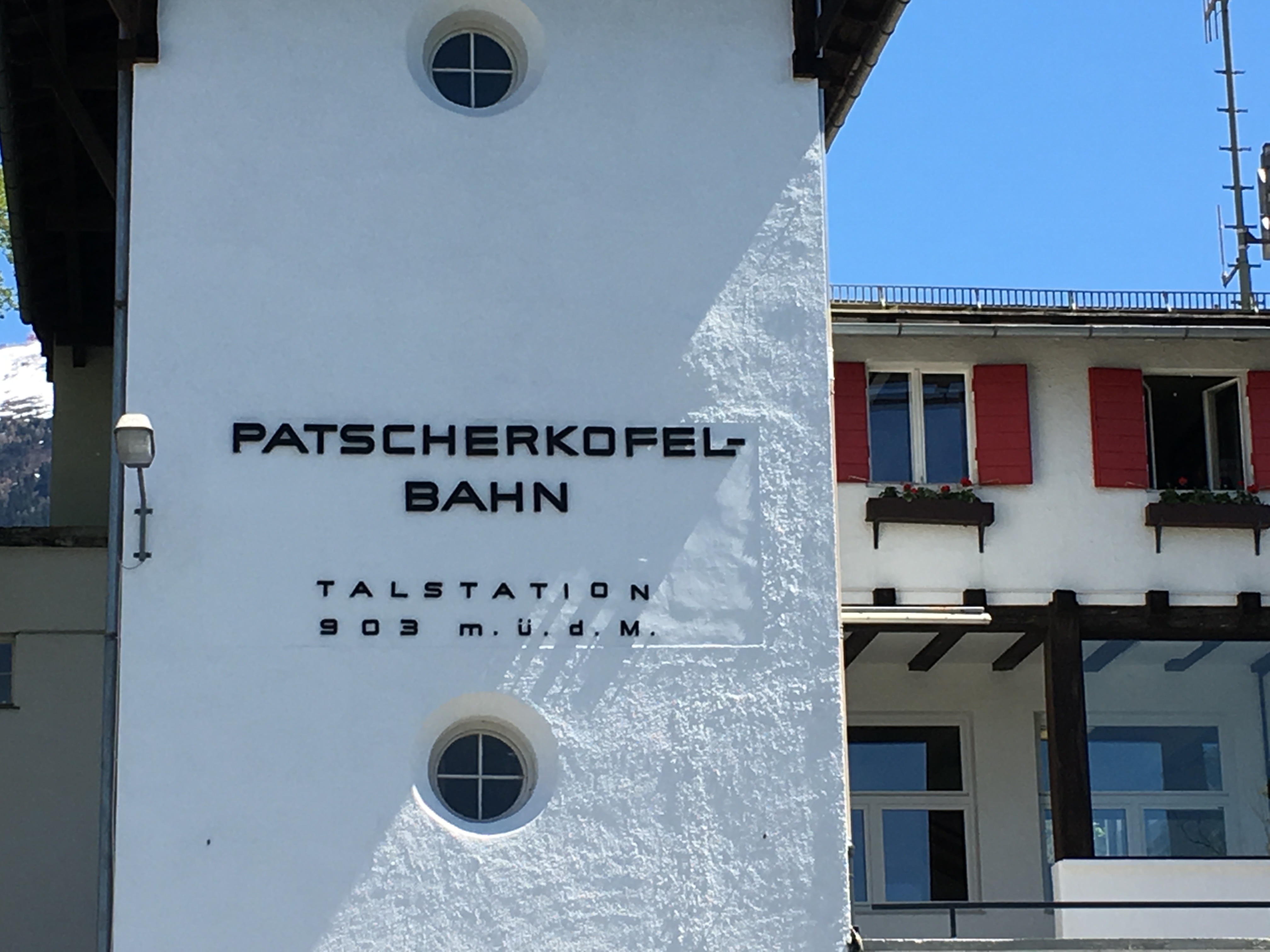
Patscherkofel Bahn
Markus Weithas, Igls near Innsbruck # 24/04/17
Geometrical Type; Installed in the 1960s? probably for the Olympic Winter Games in 1964. When the building was constructed in the 1930's "Patscherkofel" was written in Blackletter. More Information welcome!